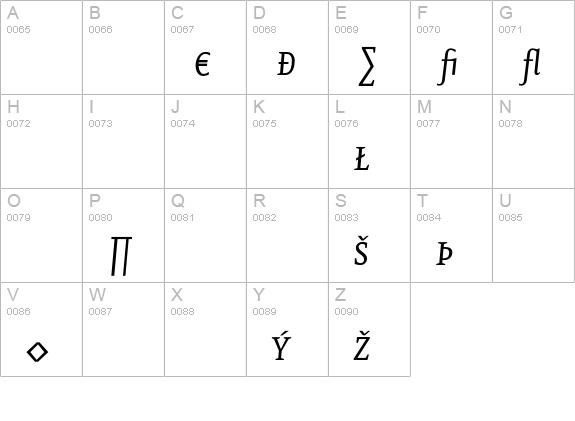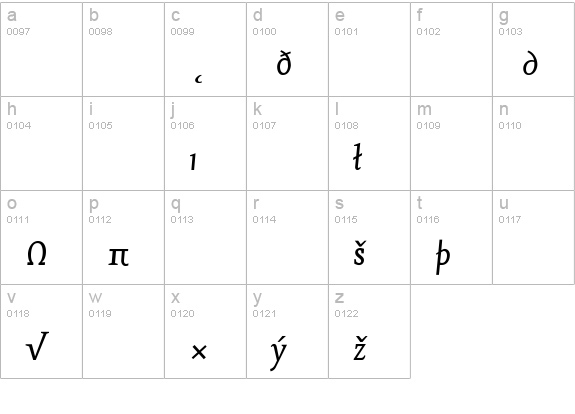
Eureka-ItalicExpert is a stunning and elegant font that exudes sophistication and style. Its sleek italic design adds a touch of modernity to any project, making it perfect for luxury branding, editorial design, and more. The flowing curves and delicate strokes of Eureka-ItalicExpert give it a unique and refined look that is sure to captivate your audience. The best part? Eureka-ItalicExpert is available for free download at FontsMarket.com, making it easily accessible for designers and creatives alike. Whether you're working on a high-end fashion magazine, a chic restaurant menu, or an upscale event invitation, this font is sure to elevate your design and leave a lasting impression. Don't miss out on the opportunity to enhance your projects with the beauty and sophistication of Eureka-ItalicExpert. Download it today and let your creativity shine!